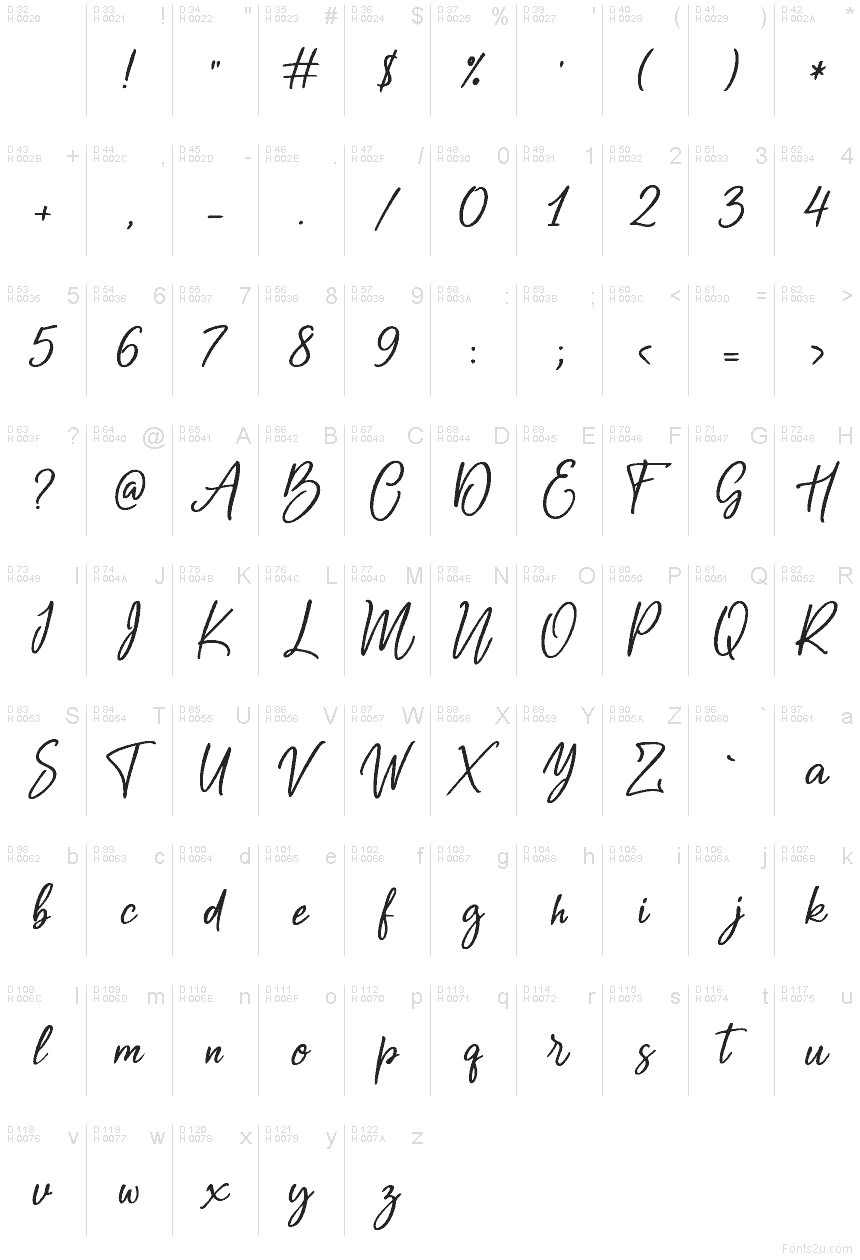
Breath of the River font by BlackFridayFont FMF is a free handwritten script font. It solves the classic script dilemma: warm and personal without turning messy. Letters glide with a soft, inky stroke and a gentle rightward slant, while the spacing stays open enough to read at a glance-no tangled swashes, just clean, confident rhythm.
Using Breath of the River, headlines and short phrases feel friendly and polished. It shines on wedding invitations, boutique branding, product labels, quote graphics, café menus, event posters, and lifestyle blogs. This free font’s smooth flow keeps it legible on small packaging yet expressive in hero lines. Pair it with a crisp geometric sans for body copy, and let the script take the spotlight.